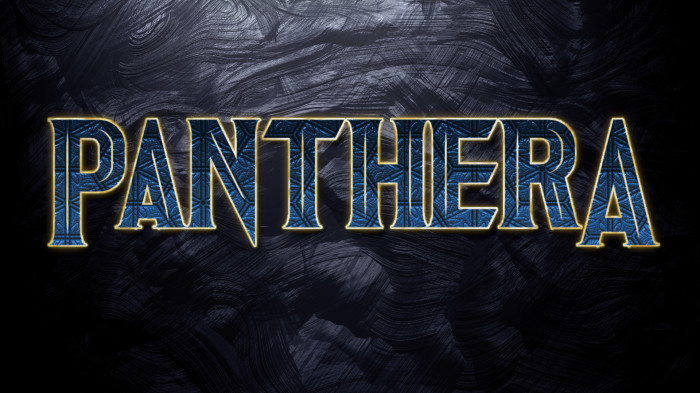
• 042718. The Black Panther is the most dramatic Marvel film to come out yet. My jaw dropped when I experienced Oakland being represented in the Marvel Cinematic Universe. And when Too Short was playing in the background I almost lost it. Wakanda Forever! I’m sorry I didn’t create this for the opening, but here it is for Avengers Infinity War.
@geneus1 - As today is the release date of a certain Marvel blockbuster (#19 - Infinity War), I was curious to see if you were going to release another movie logo.  Instead, you manage to surprise us with three (!): Avengero, Panthera, & Ragnarox.  Congratulations on the accomplishments, Gene.
Congratulations! FontStruct Staff have deemed your FontStruction worthy of special mention. “Panthera” is now a Top Pick.
An intriguing inline design, it makes me think of danger-power-elegance combined with 'alternative methods' to get to the finish. Maybe I should check out Marvel comics ...... congratulations on the TP